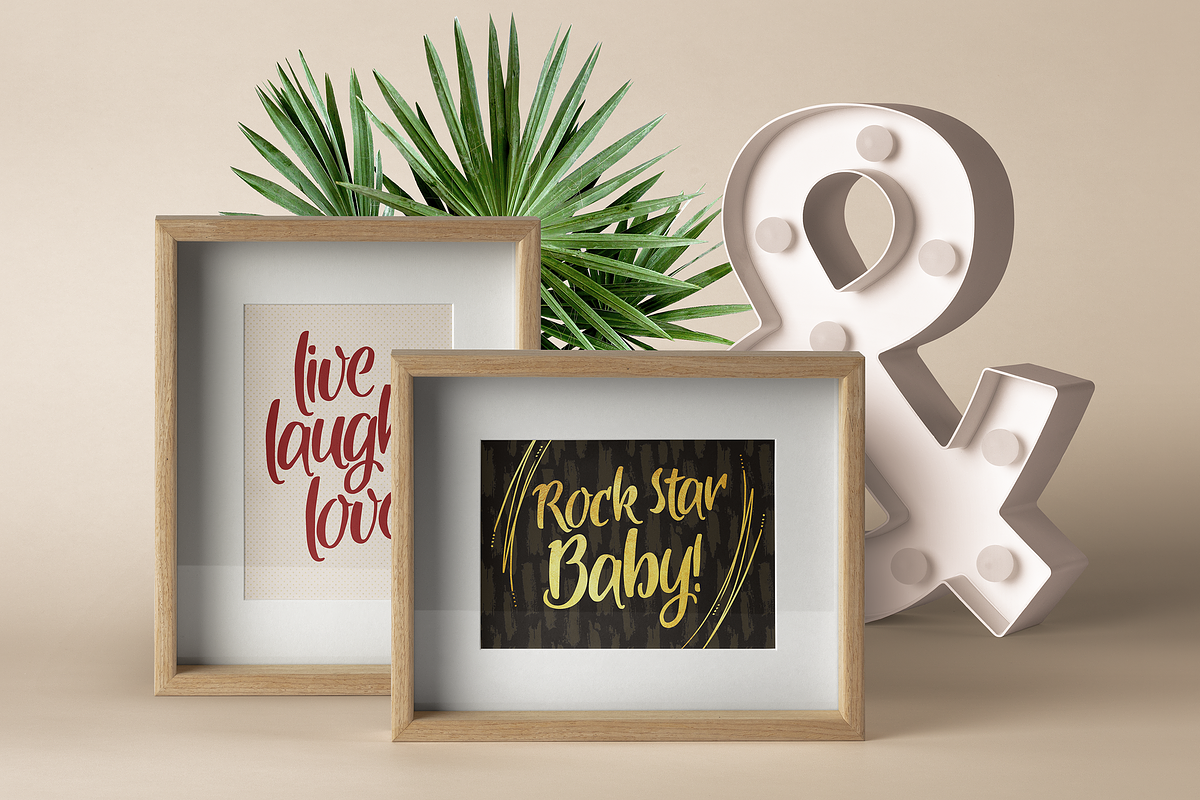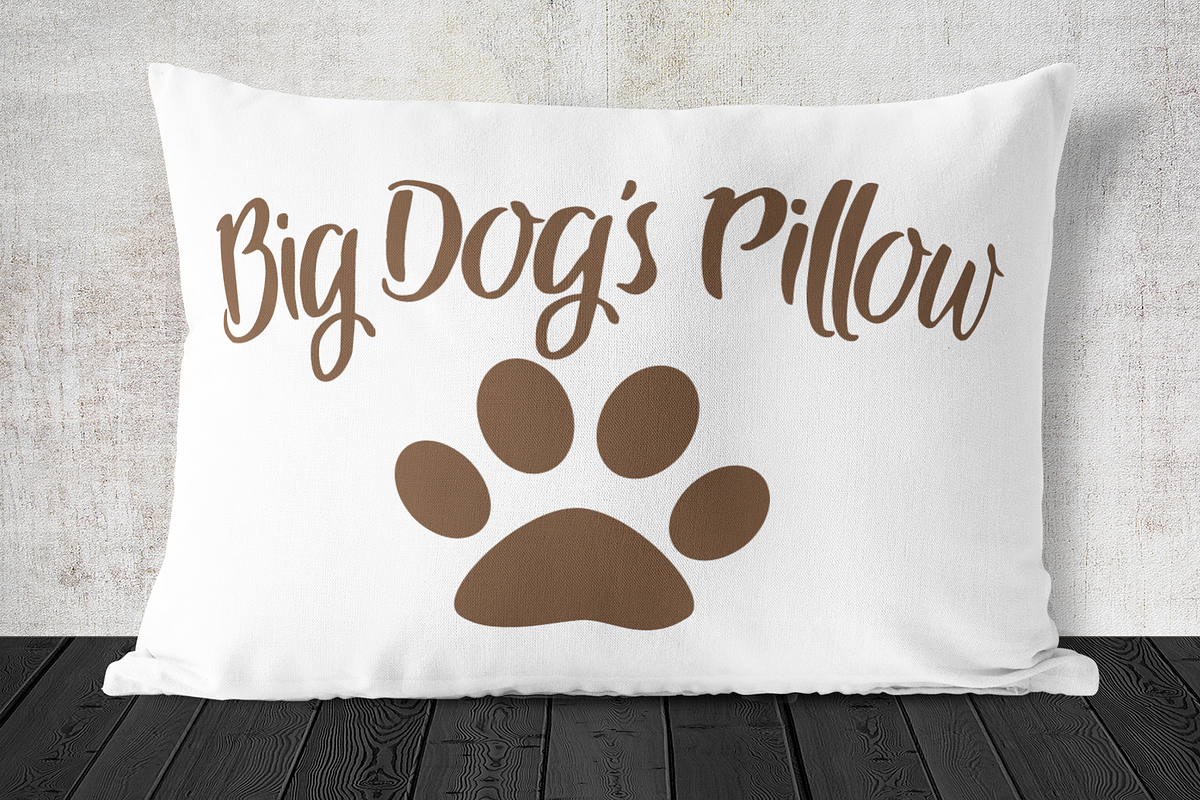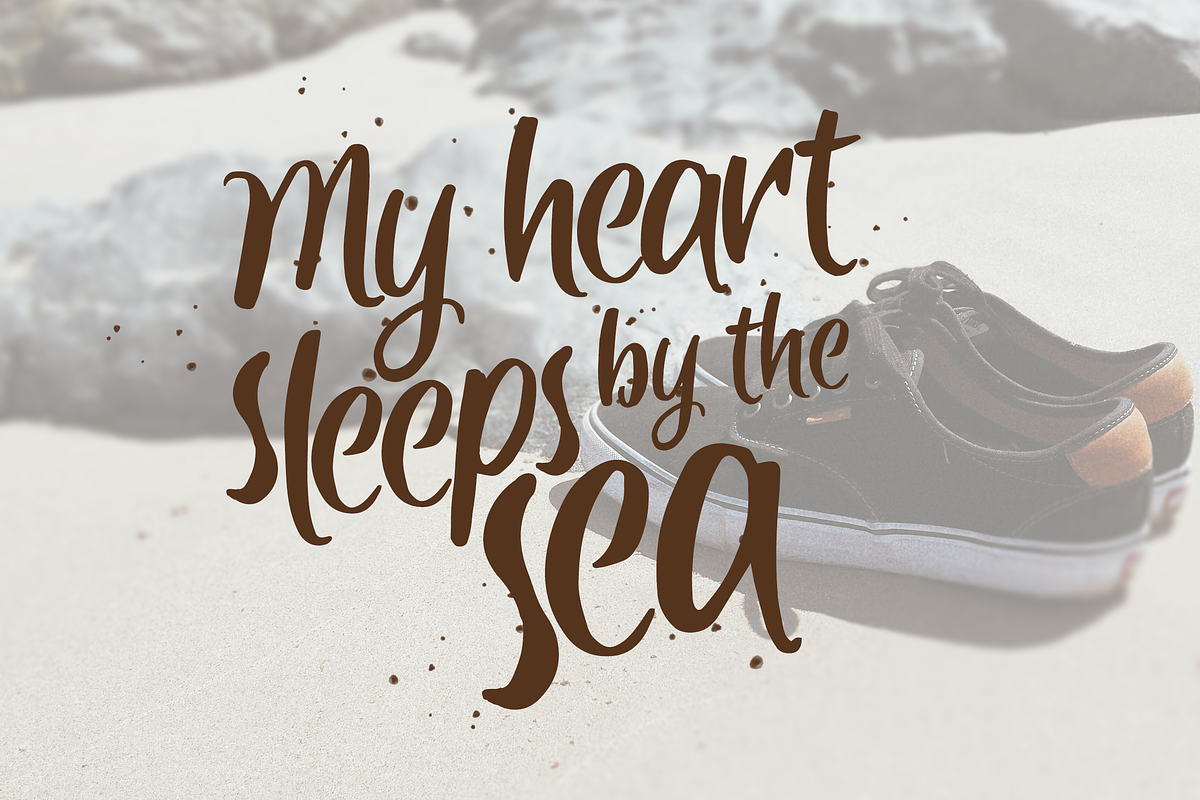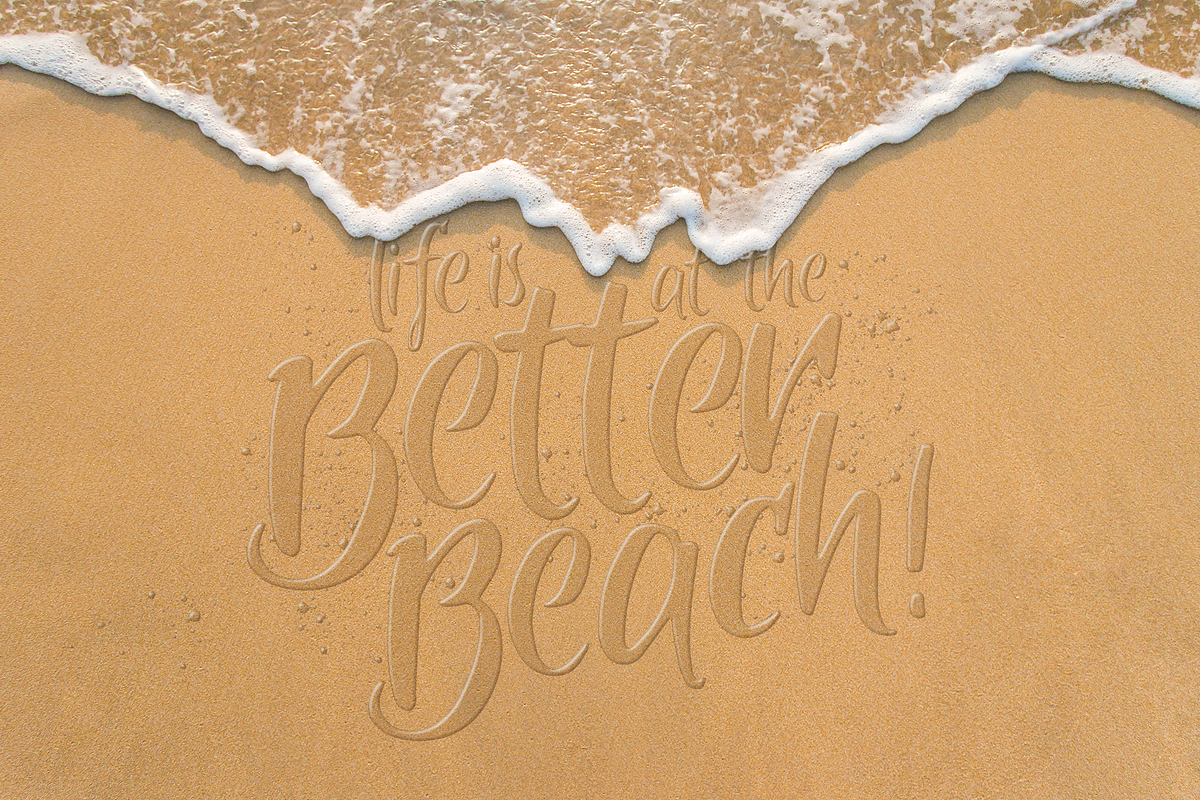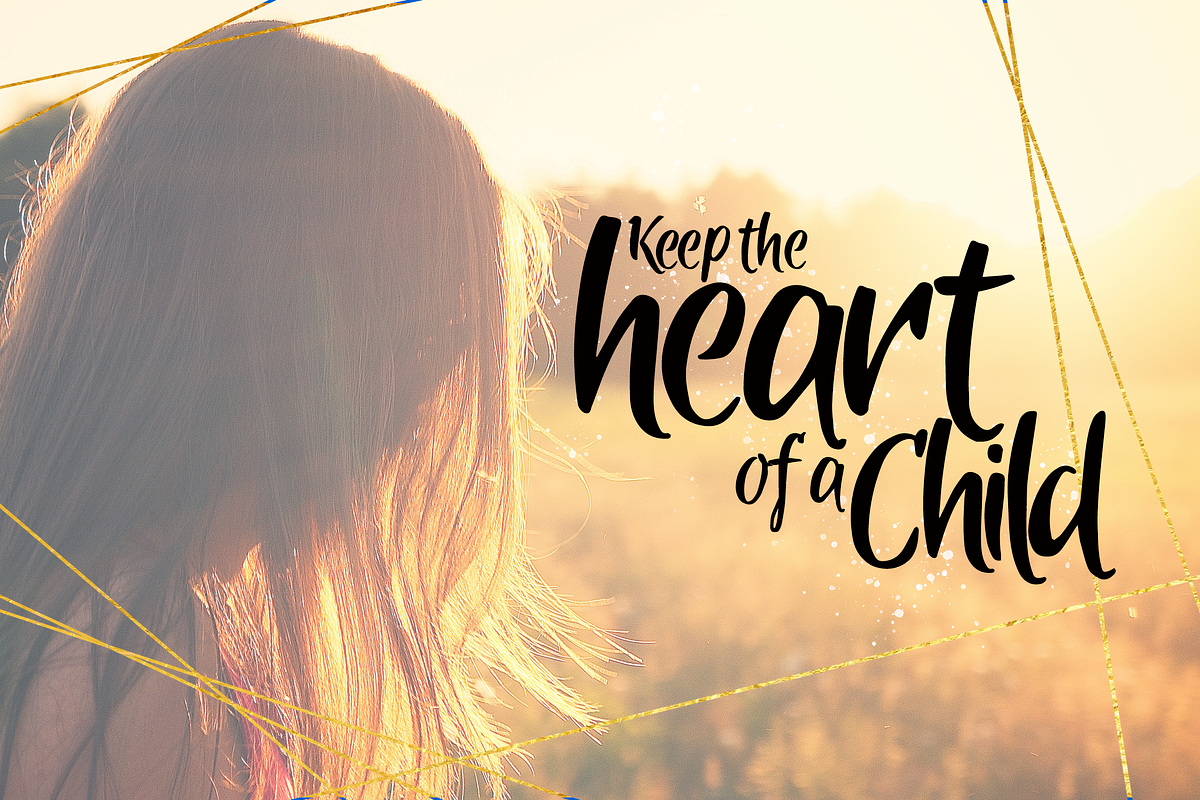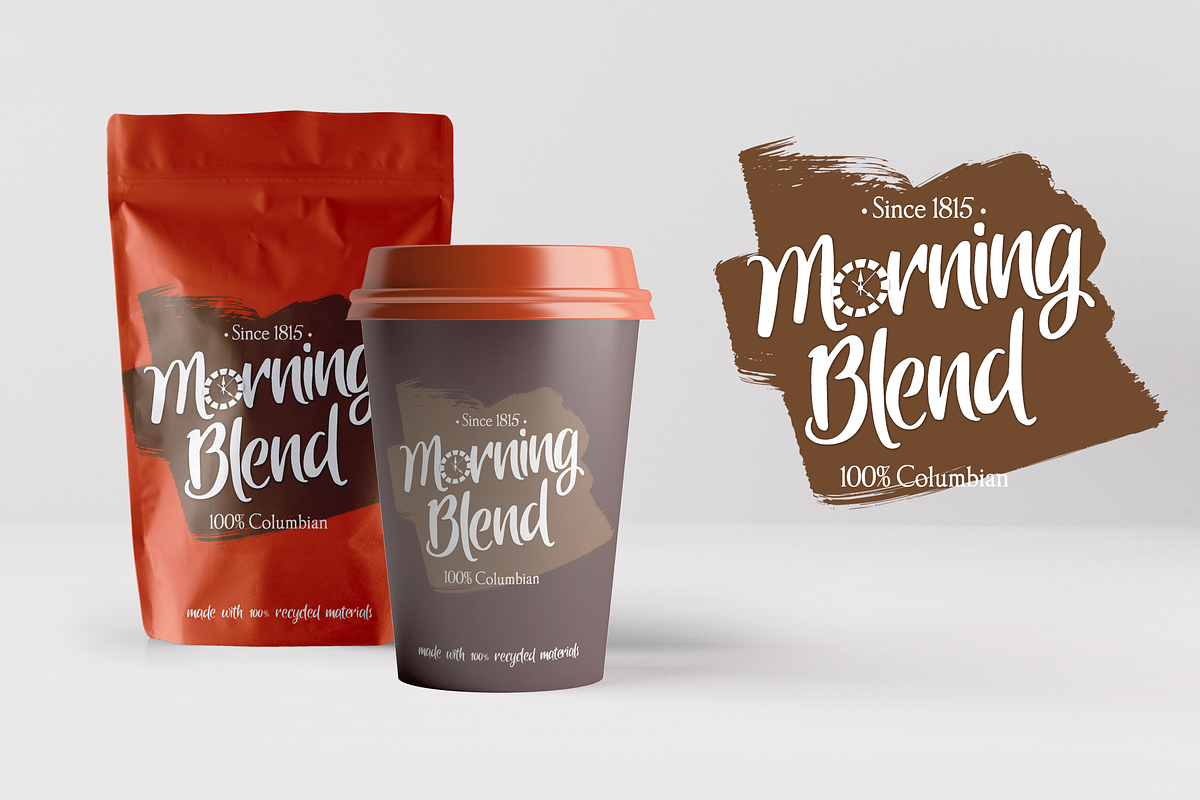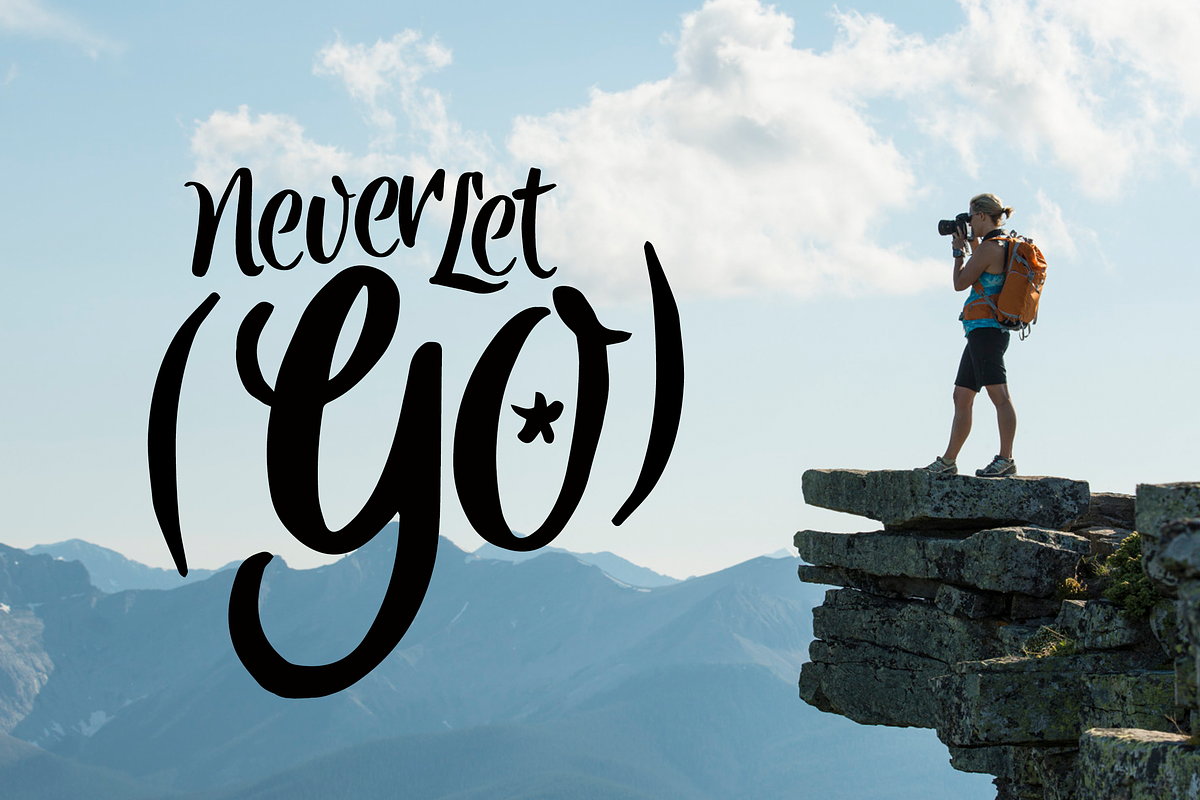
Balloons - A Beautifully Fun Font
Balloons - A Beautifully Fun Font that is perfect for crafting, branding, invitations, weddings and such.
Why Balloons - A Beautifully Fun Font is worth a look
Balloons - A Beautifully Fun Font by potterDesigns fits naturally into Branding, posters, packaging, typography.